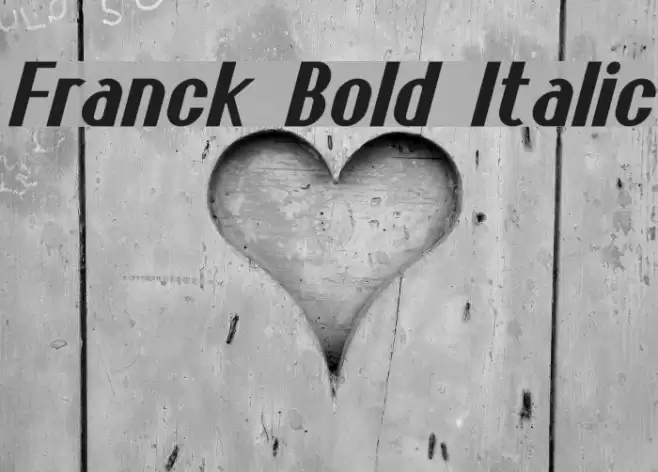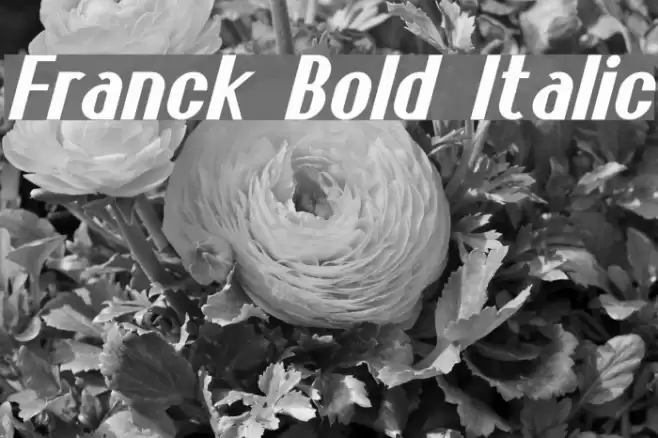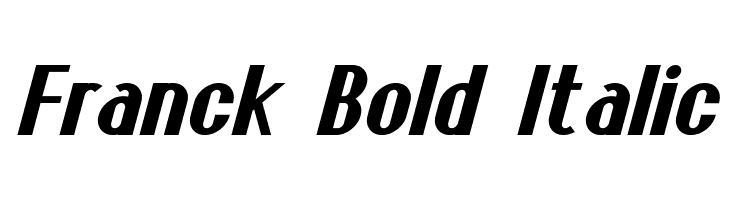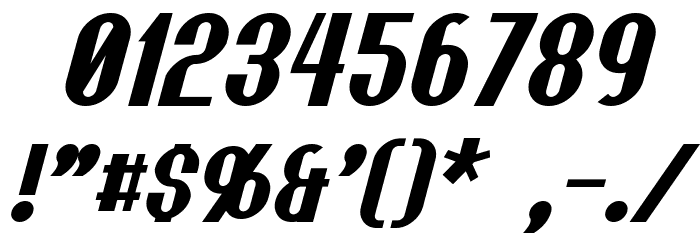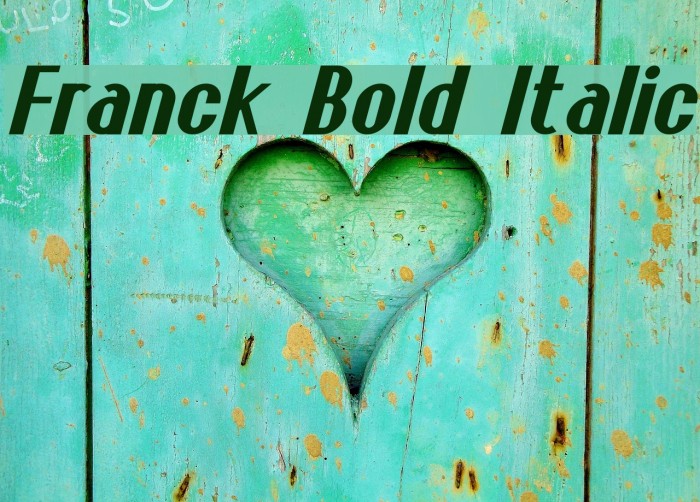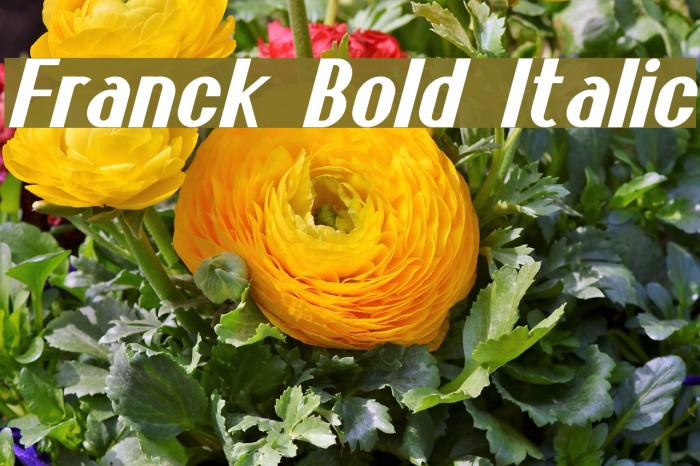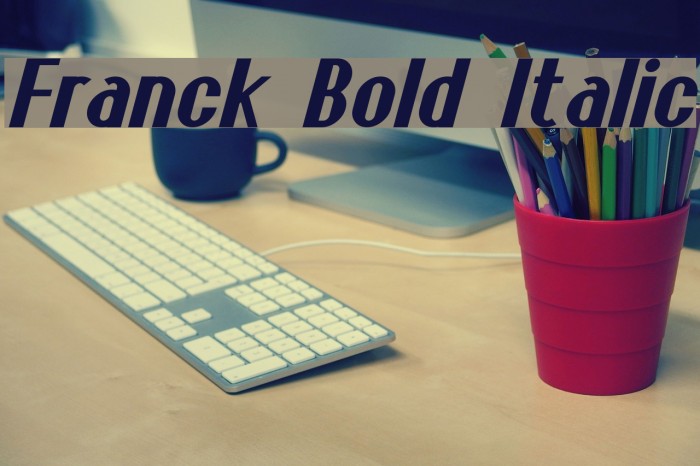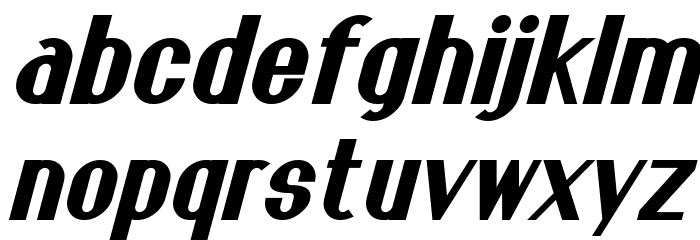
Franck Bold Italic Font
Franck Bold Italic Description
This font features a bold and italic style, characterized by its strong, slanted letterforms that convey a sense of dynamism and emphasis. The uppercase and lowercase letters maintain a consistent boldness, with a slight forward tilt that enhances readability and adds a modern flair. The numerals are equally bold and slanted, ensuring they stand out in any context. Special characters are designed with the same bold and italicized style, making them cohesive with the rest of the font. The overall appearance is sleek and contemporary, suitable for making a strong visual impact.
A bold, italic font with a modern, dynamic style.
- Proposed Projects: Ideal for branding, advertising, headlines, and any project requiring a strong, modern aesthetic.
- Category: Sans-Serif
- Use Case: Headlines, Logos, Branding